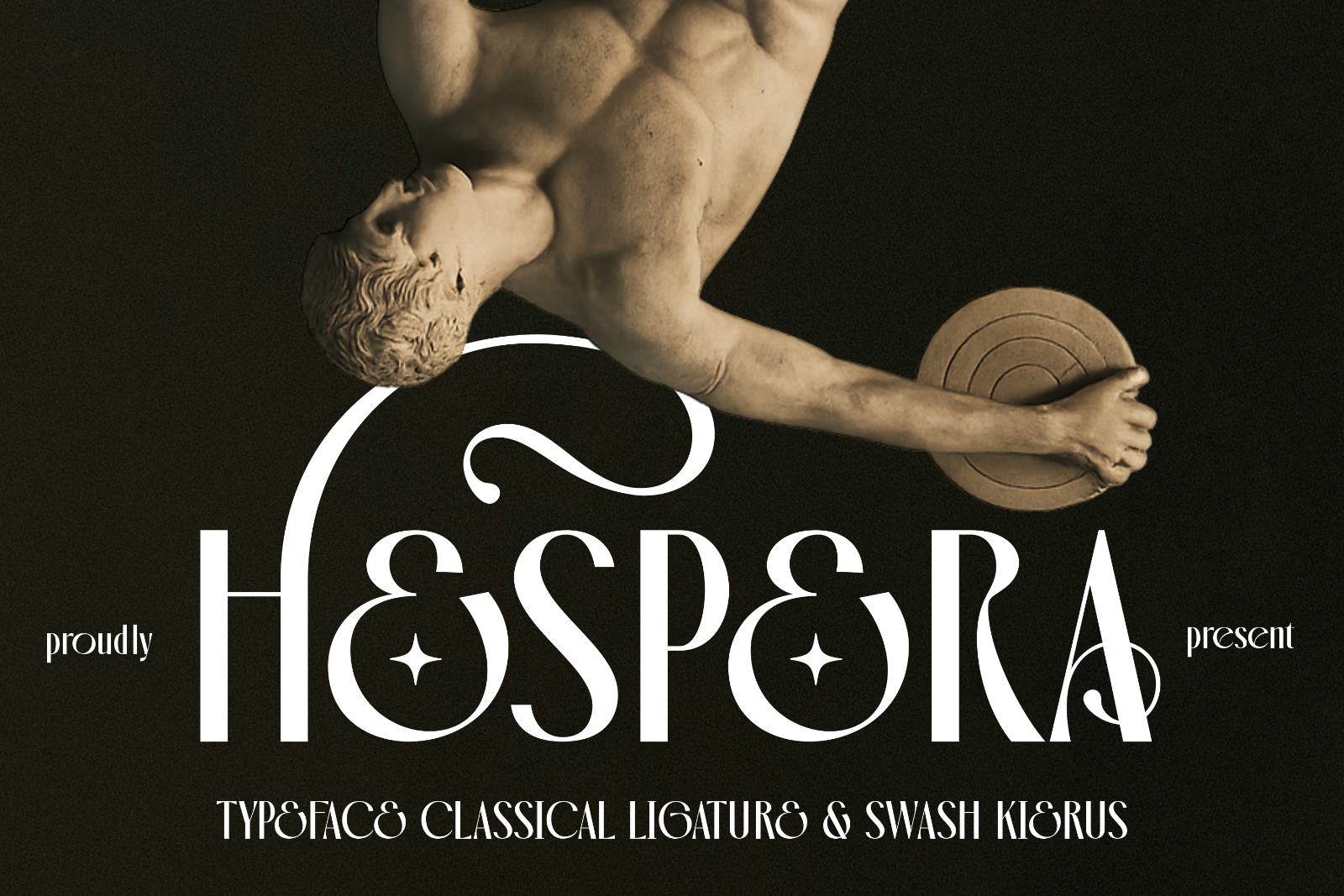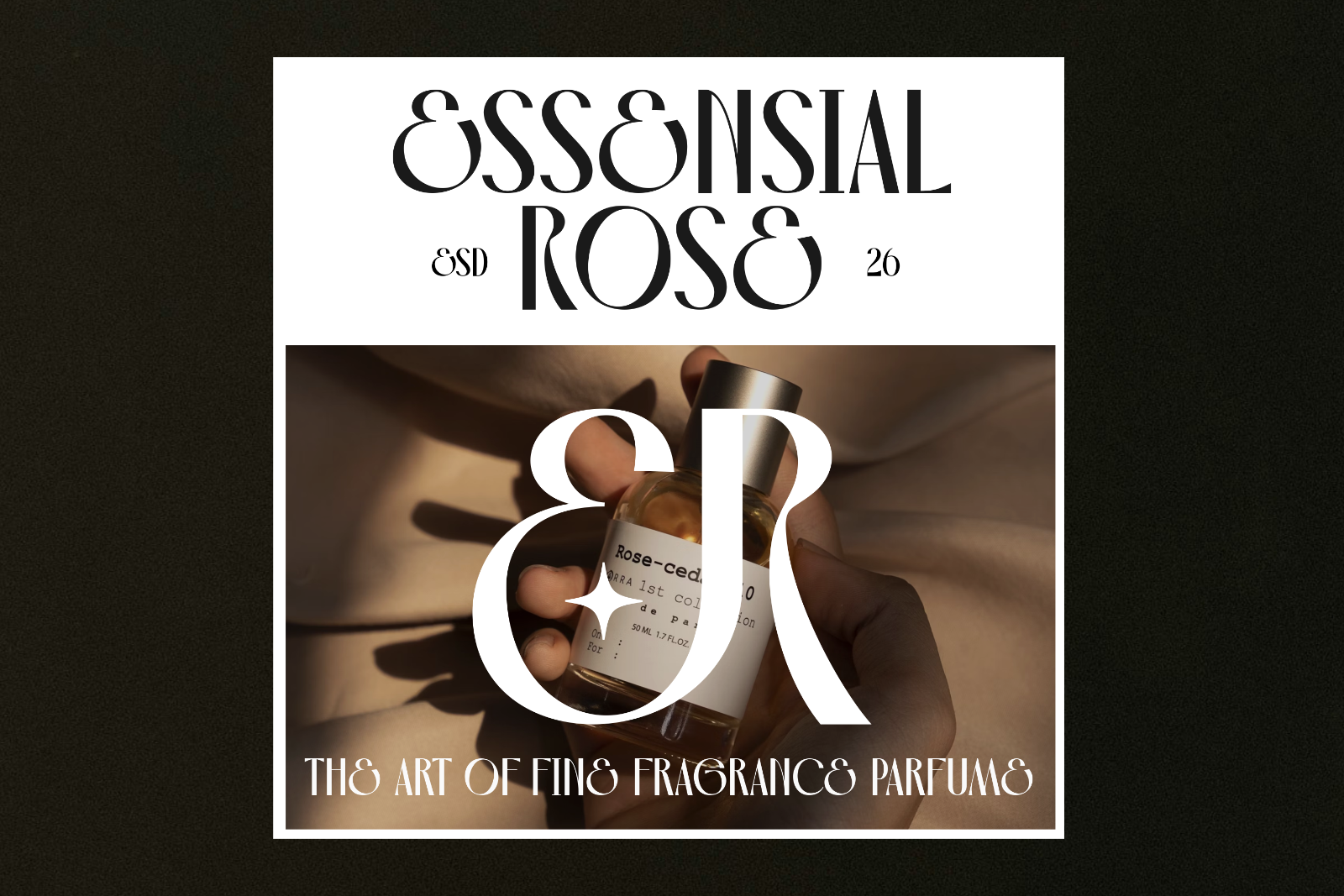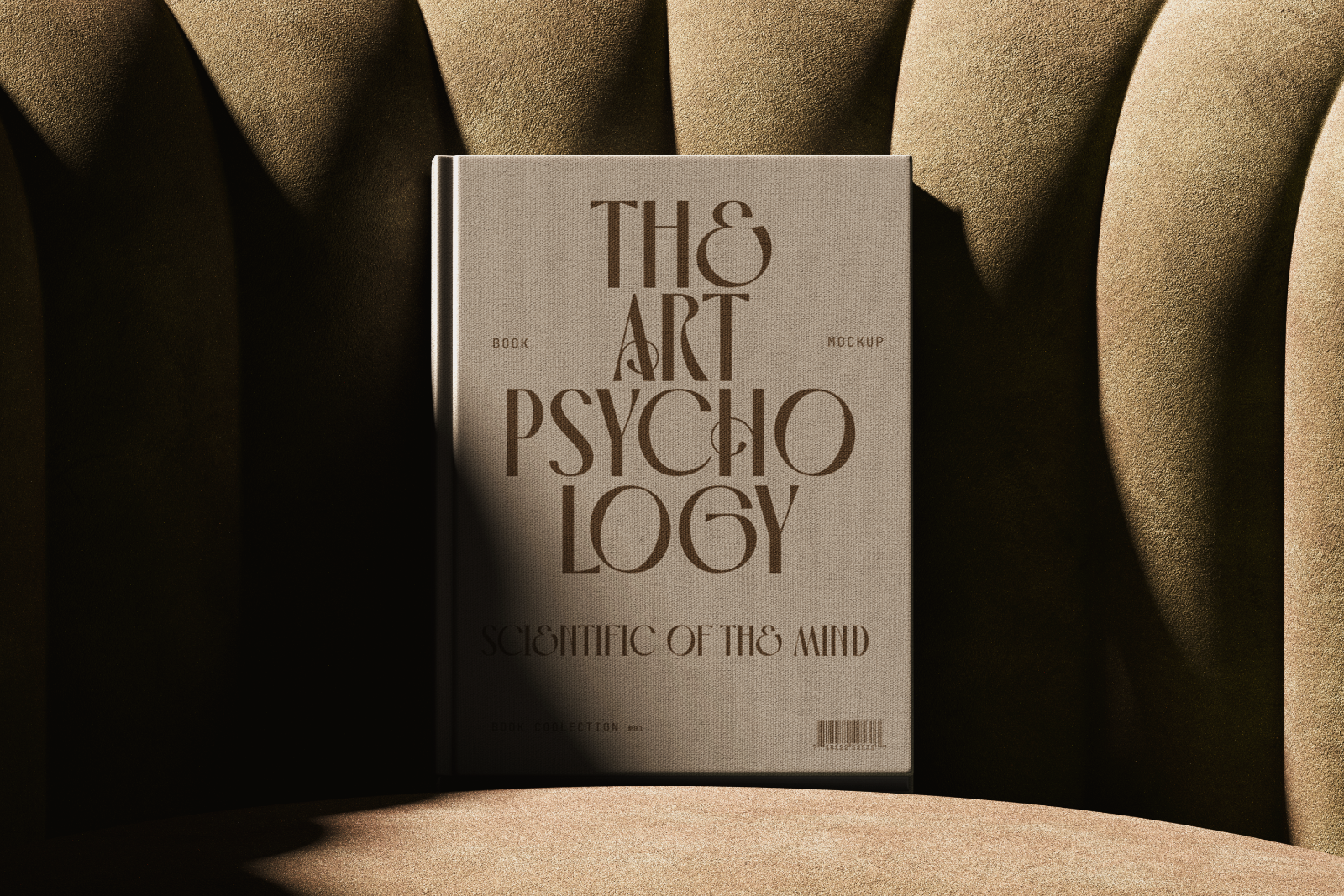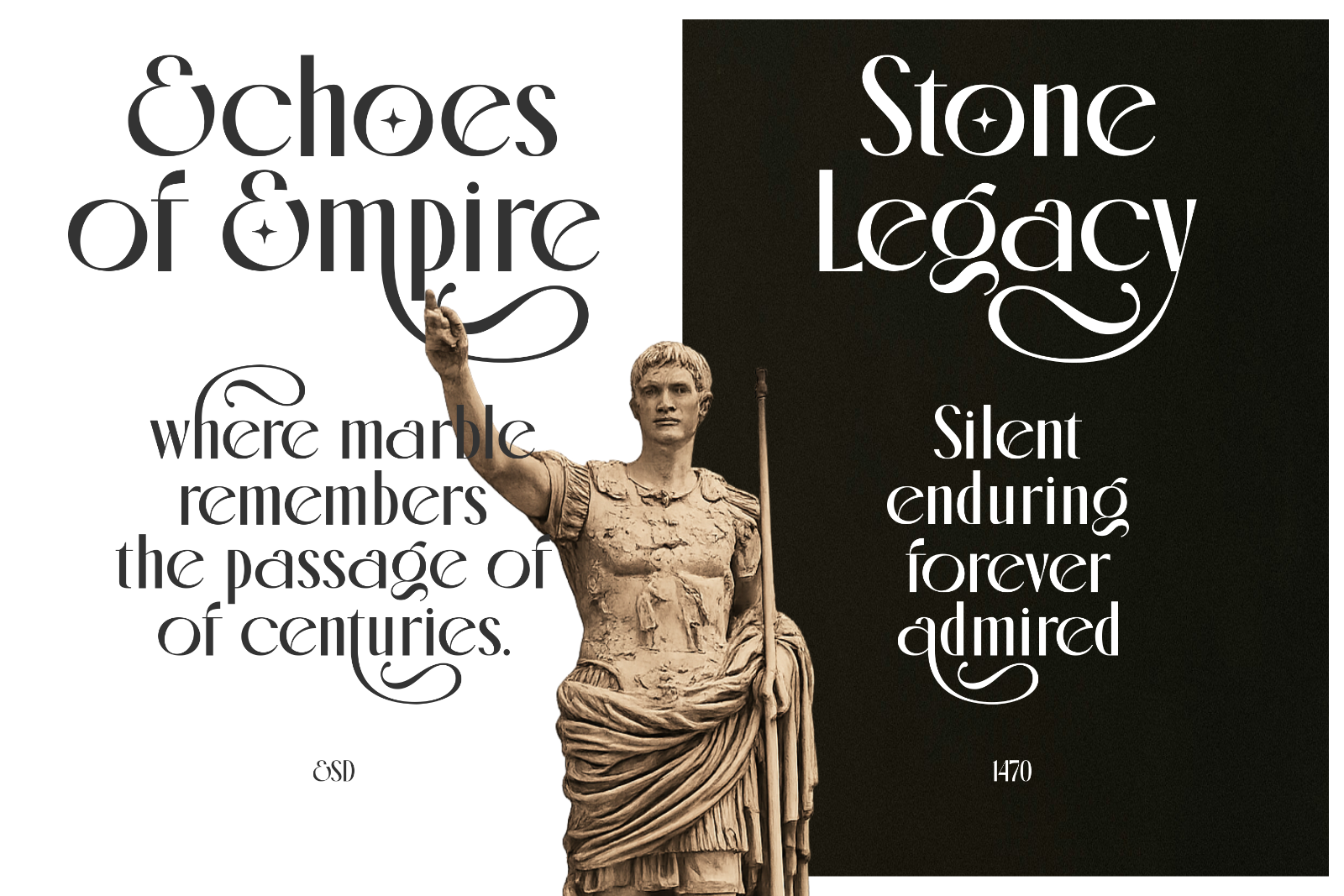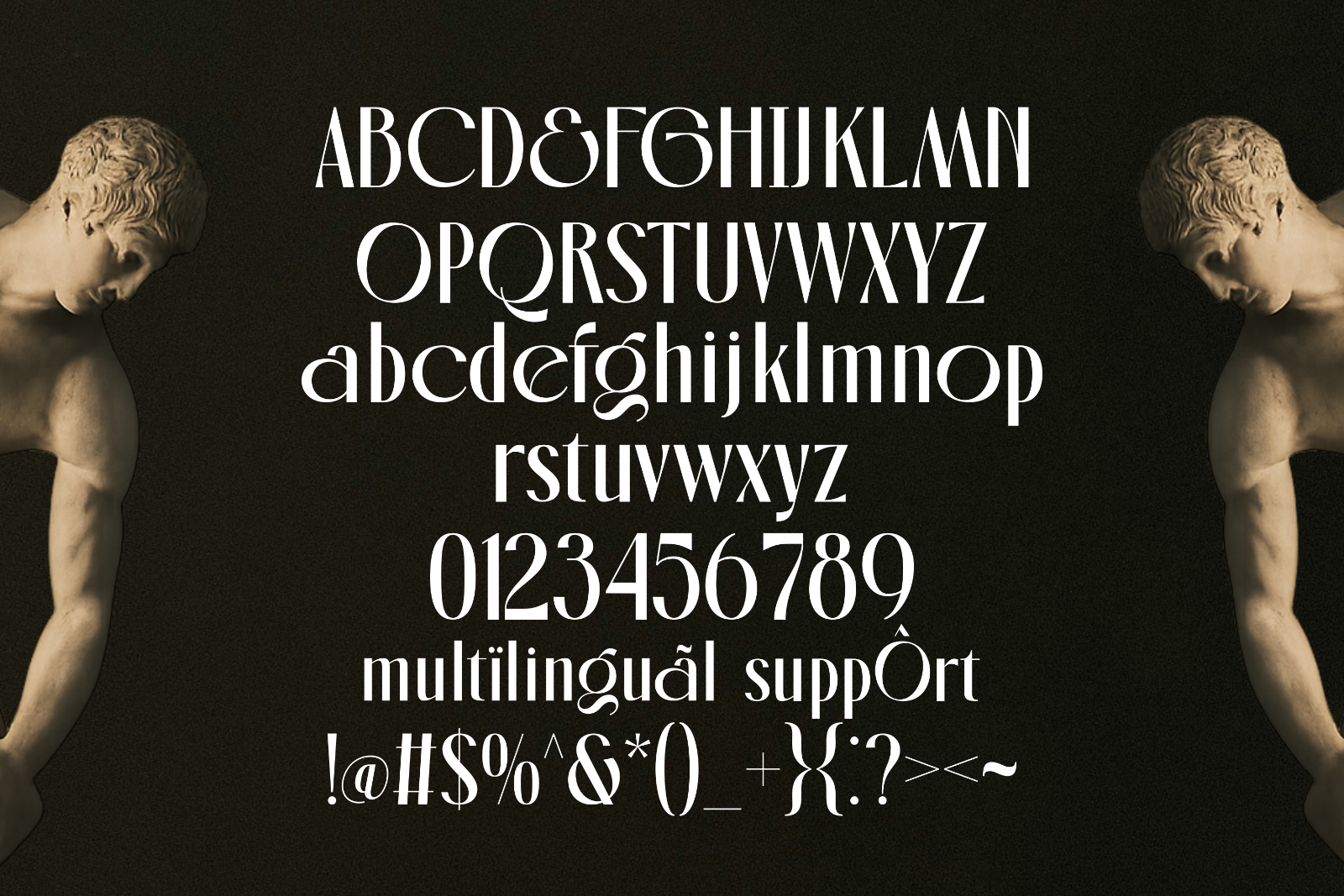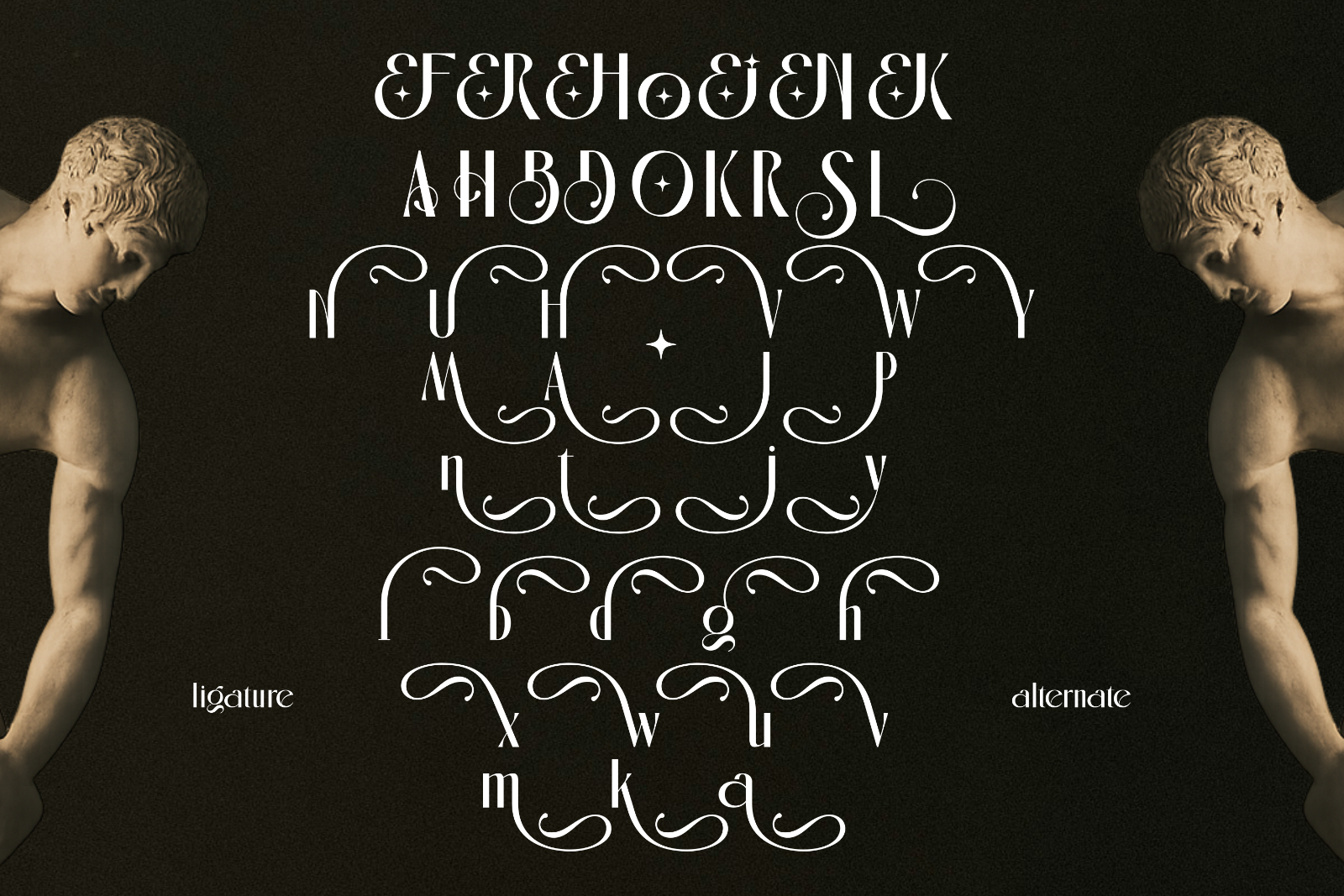
Hespera — Classical Elegant Serif Font
Immerse your digital designs in timeless antiquity with Hespera, a classical elegant serif font inspired by the enduring beauty of Roman typography and marble statuary. Featuring sophisticated letterforms, refined contrast, and graceful curves, this typeface brings a sense of monumental luxury and historical grandeur to any modern creative project.
Designed for high-end aesthetics, Hespera includes a breathtaking collection of classical ligatures and sweeping swashes, allowing you to craft highly customized, bespoke typography. Whether you are developing elegant brand identities, digital book covers, or premium fragrance packaging, this font ensures your work radiates sophistication and enduring grace.
- Full Character Set: Uppercase, lowercase, numerals, and standard punctuation.
- Alternates & Ligatures: Unique classical swashes and beautifully joined letterforms for a custom typographic finish.
- Multilingual Support: Broad language coverage for international creative projects.
Perfect For These Projects:
- Luxury Branding & Logo Design: Crafting high-end brand identities, premium wordmarks, and sophisticated boutique logotypes.
- Beauty & Fragrance Branding: Developing elegant digital packaging typography, fine perfume campaigns, and cosmetic brand guidelines.
- Editorial & Book Layouts: Composing striking digital book covers, historical editorial spreads, and online magazine headlines.
- Museum & Gallery Exhibitions: Designing sophisticated digital invitations, online gallery promotions, and classical event announcements.
- Digital & Social Media Content: Creating refined social media aesthetics, luxury campaign visuals, and elegant web typography.